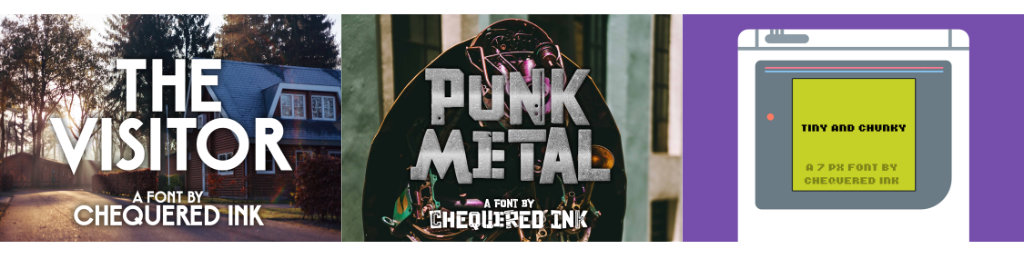
The new fonts are The Visitor - a sharp sans-serif font great for sci-fi projects. Punk Metal, a chunky metallic font great for anything cyberpunk, and Tiny and Chunky - a small, bold pixel font great for retro games.